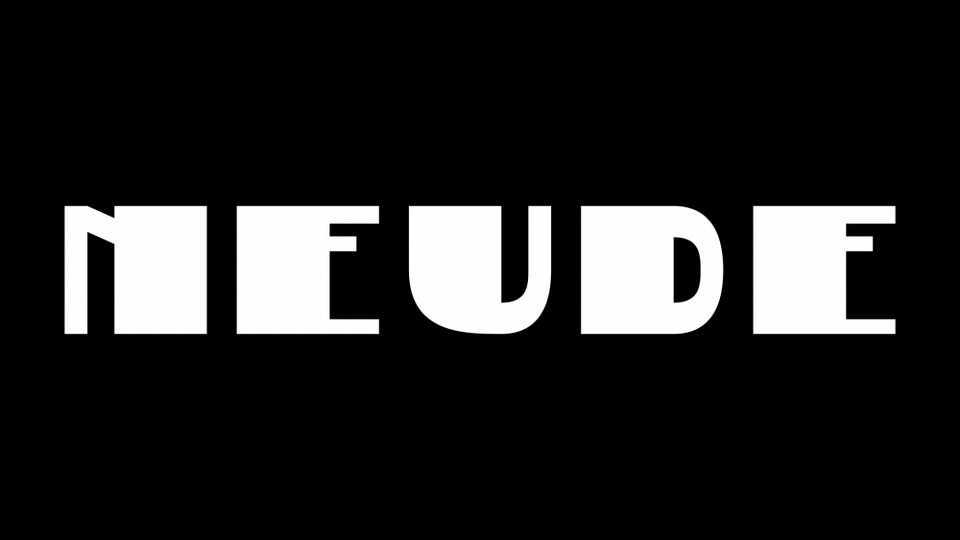
Download Neude font, a display typeface, digitized version of a typography in style of Amsterdam School. Designed by extreme bold line, extreme thin line and geometric shapes, Neude font has a strong Art Deco influence.